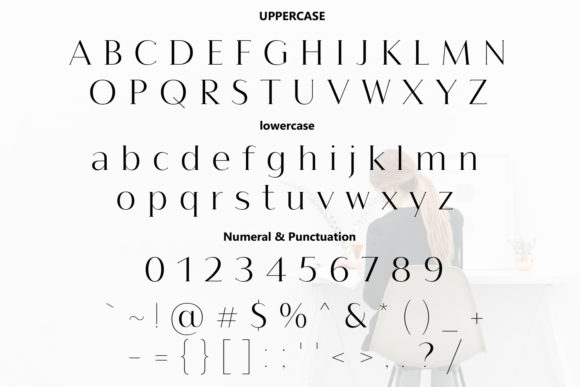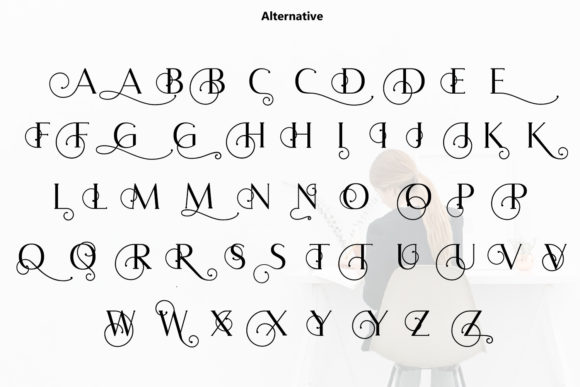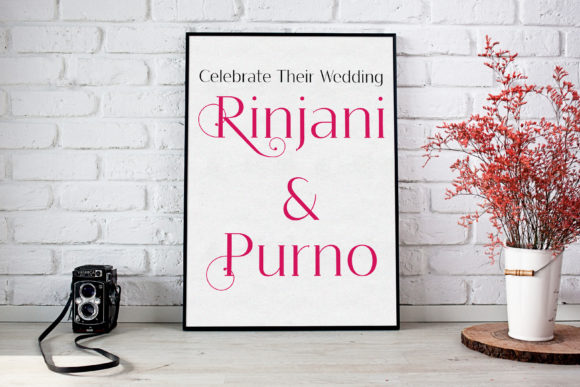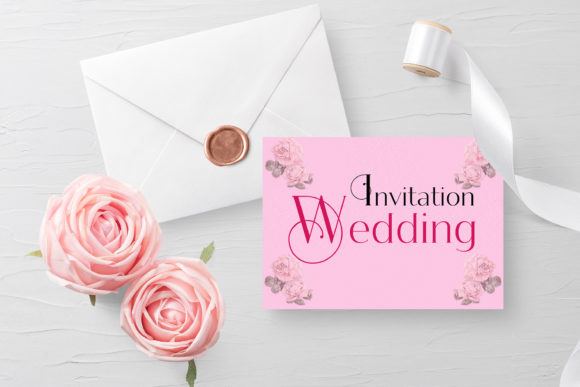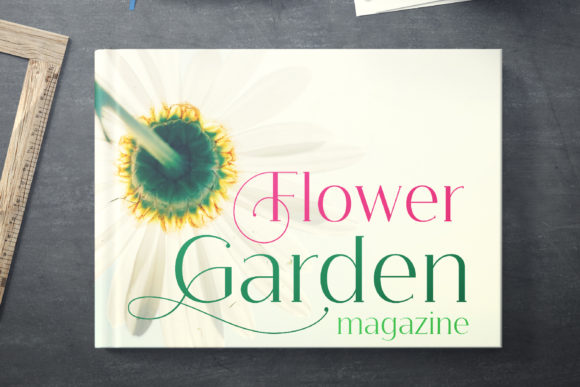
The Elusive Perfect Font: My Encounter with Buroq
I’ll never forget the struggle I faced while working on a wedding invitation project. My client wanted an elegant and romantic design, but I was stuck with a bland, generic font that just wouldn’t cut it. That’s when I stumbled upon Buroq, a typeface that would change the game for me. Its modern charm and elegant vibe instantly won me over, and I knew I had found the perfect fit for my project.
First Impressions: A Love Letter to Buroq
Buroq is more than just a font – it’s an experience. Its sleek lines, beautiful curves, and exquisite details make it the perfect choice for designs that require a touch of sophistication and romance.
What I Love About Buroq ✨
• ✅ Elegant and modern design that’s perfect for wedding invitations, branding, and packaging
• ✅ Beautifully crafted letters with intricate details that add a touch of luxury to any design
• ✅ Highly versatile and works well for both digital and print projects
• ✅ OpenType features that allow for creative experimentation and customization
• ⚠️ Some users may find the font a bit too ornate for certain projects, such as body text or captions
• ⚠️ Limited availability of certain characters and glyphs, which may require additional design workarounds
The Story Behind Buroq: A Designer Inspiration
Buroq was designed with the intention of creating a beautiful, elegant typeface that would add a touch of sophistication to any design. Its creator, a talented type designer, drew inspiration from classic calligraphy and modern digital design to craft a font that’s both timeless and trendy.
What is Buroq? Buroq is a modern, elegant typeface designed for creative professionals and hobbyists.
Is Buroq suitable for body text? While Buroq is a beautiful font, it may not be the best choice for body text due to its ornate design. It’s better suited for headlines, titles, and short paragraphs.
Does Buroq support OpenType features? Yes, Buroq supports OpenType features, including ligatures, stylistic alternates, and more.